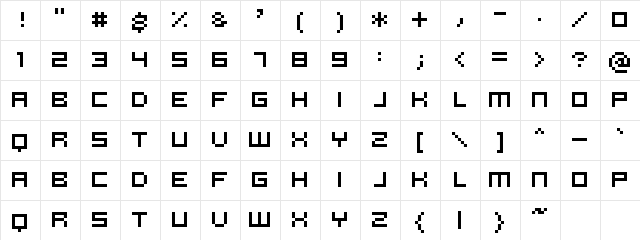
peterpan Regular Font Preview
peterpan Regular
peterpan Regular Font Details
Design Context for peterpan Typeface
peterpan offers clean, dependable letterforms without strong stylistic allegiance, making it a practical choice for designers who need flexibility.